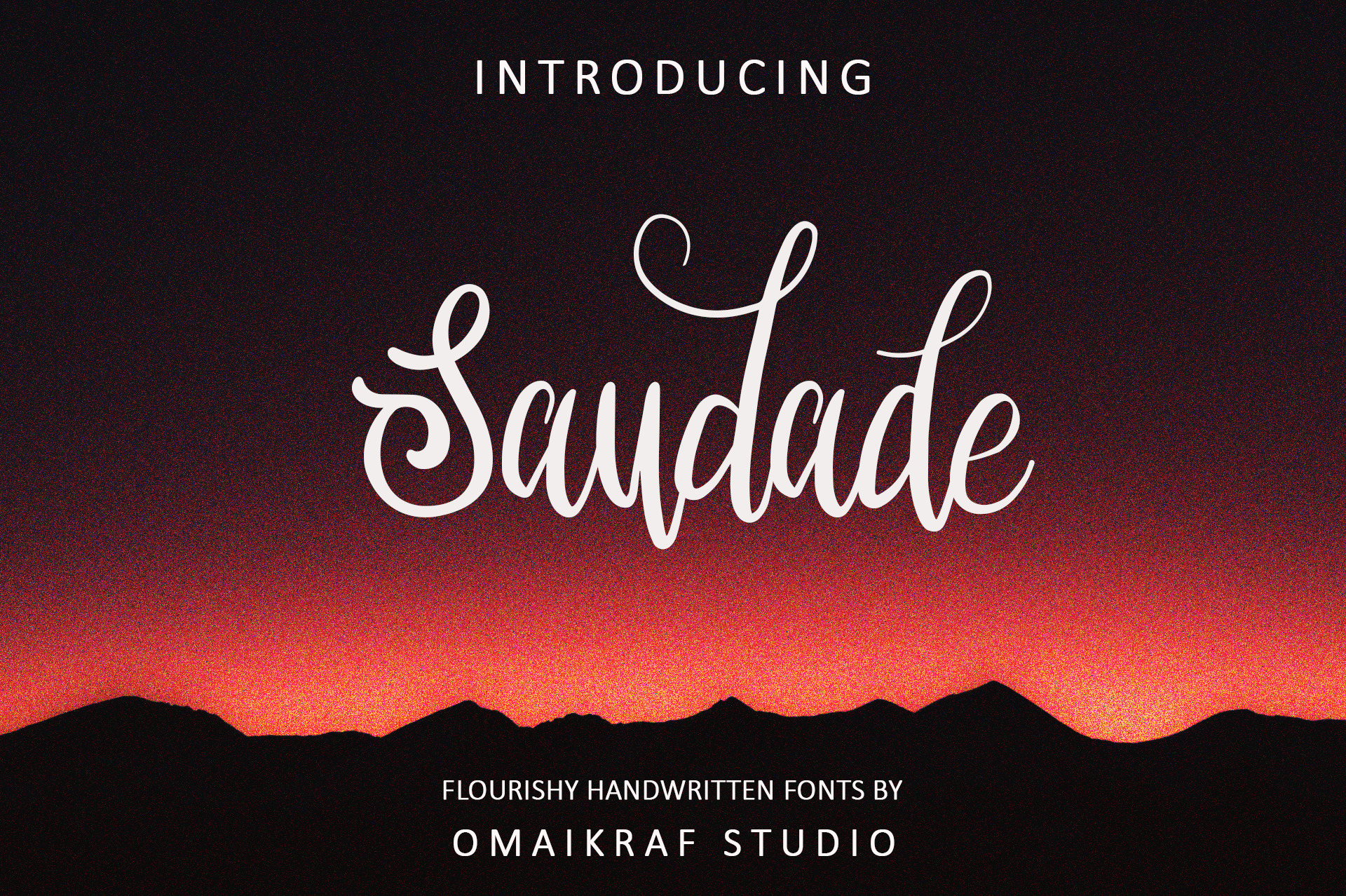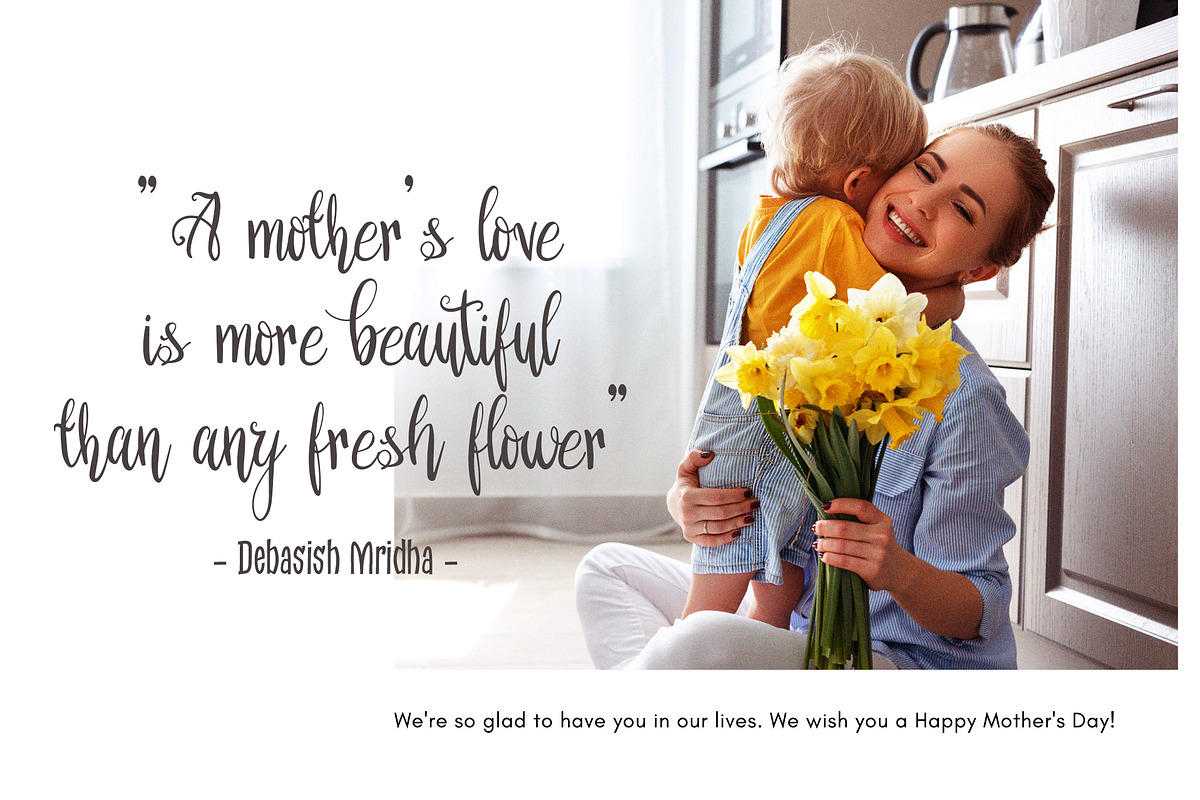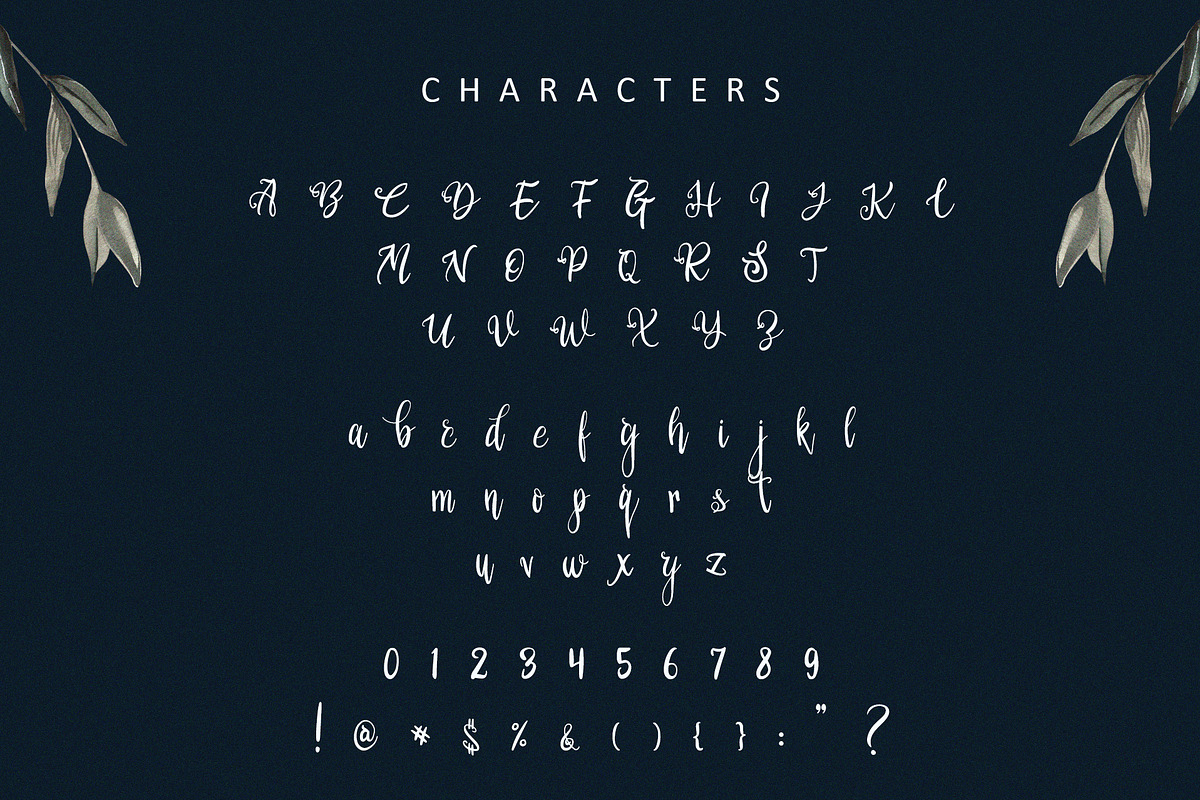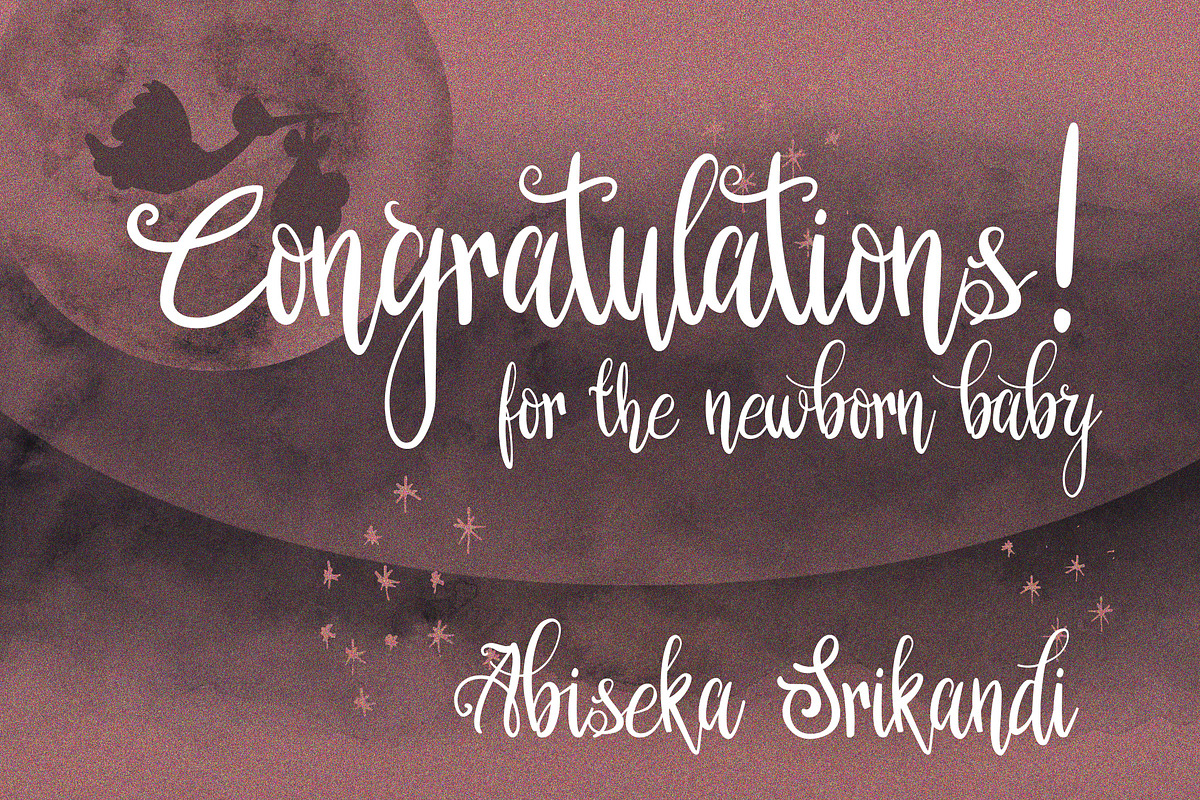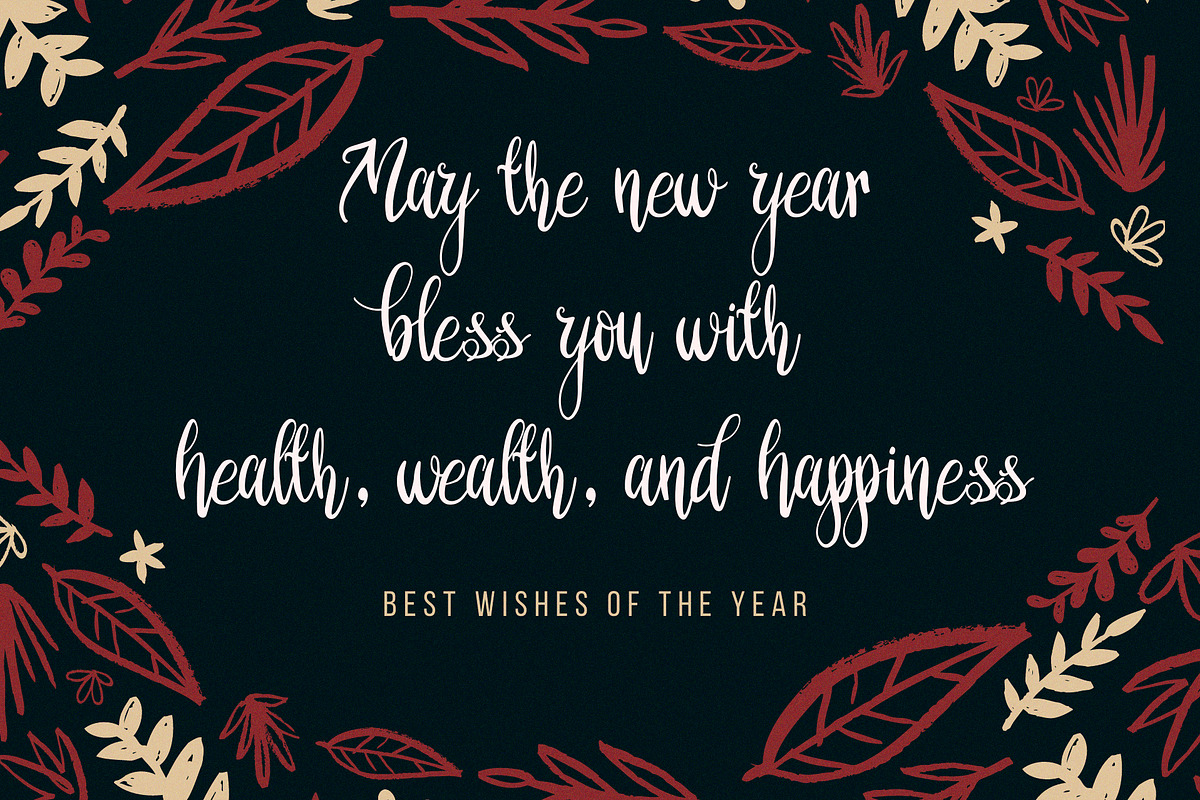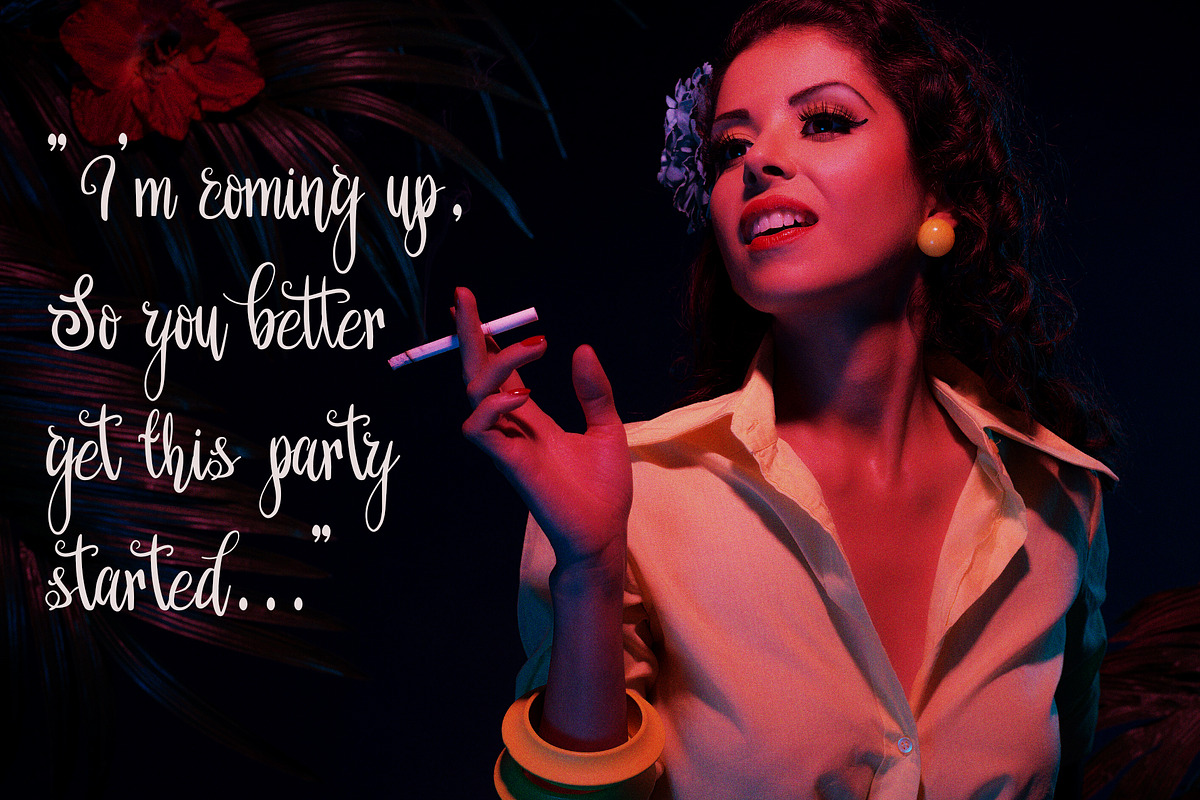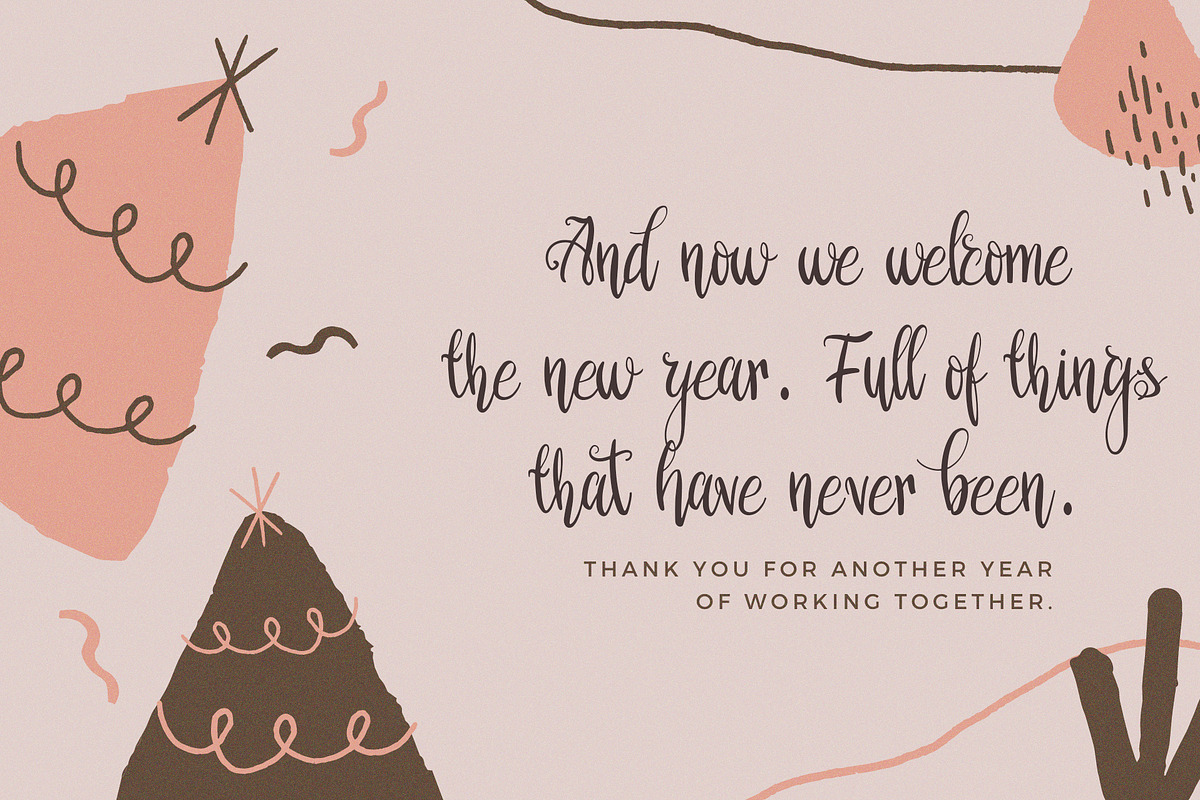
Saudade | Natural Flourishy Fonts
Hi, We are pleased to introduce you our new handwriting fonts - Saudade. Perfect for casual occasion such as; greeting and invitation cards, illustrations, quotes, children books, and so much more.